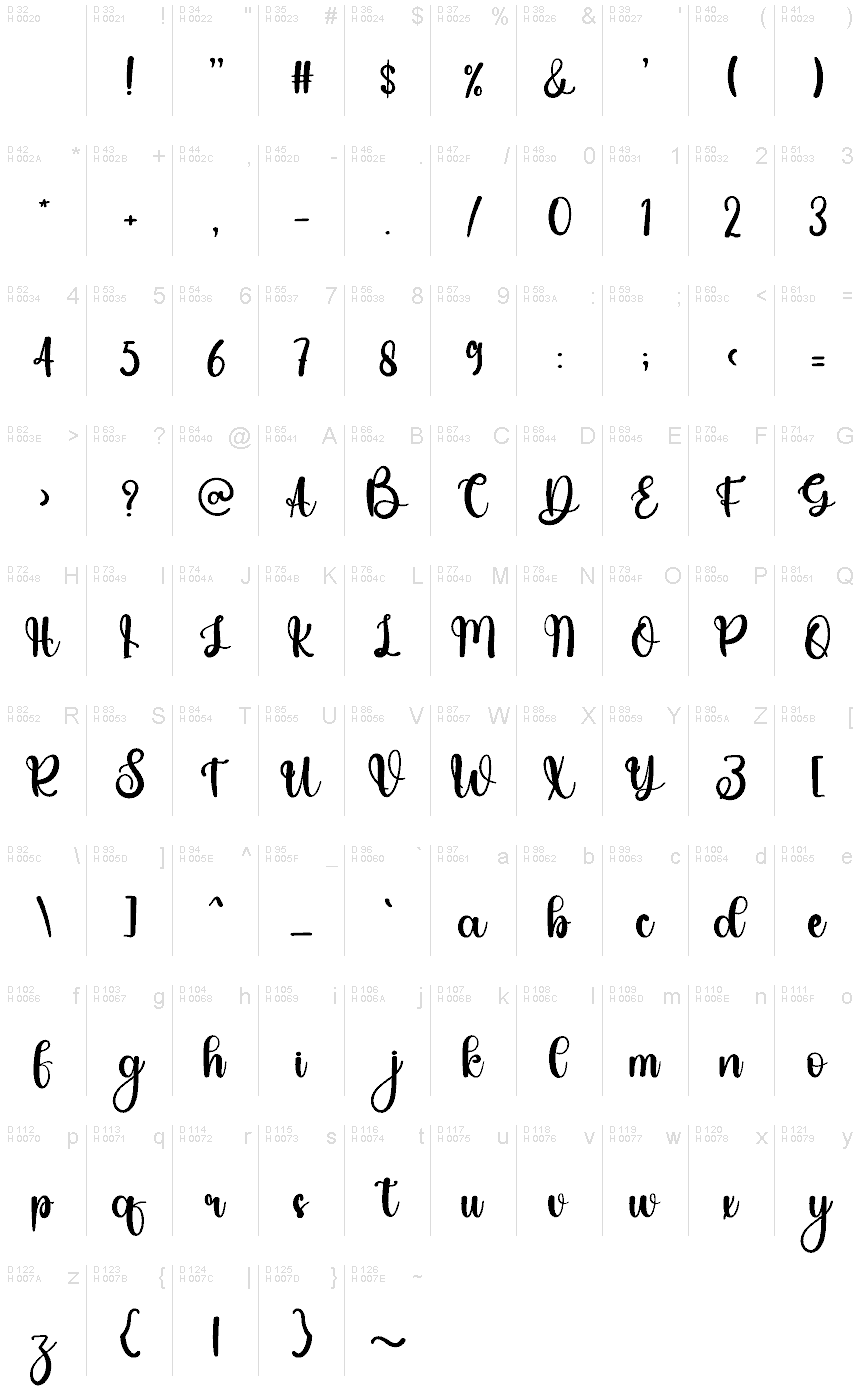
Halfway
Halfway font by PiPi Creative is a flowing calligraphy script with modern and expressive touches. It features graceful curves that fit into a variety of logo design, print, tattoo design, social media posts, branding projects, packaging products, or even personal signatures. Halfway overlays the thin and thick strokes masterfully to give you beautiful results in any context.
Use this free calligraphy font for wedding invitations or formal events of any kind. Combine it with other great digital typography for magazines and book covers because the options are truly limitless if you’re creative enough.